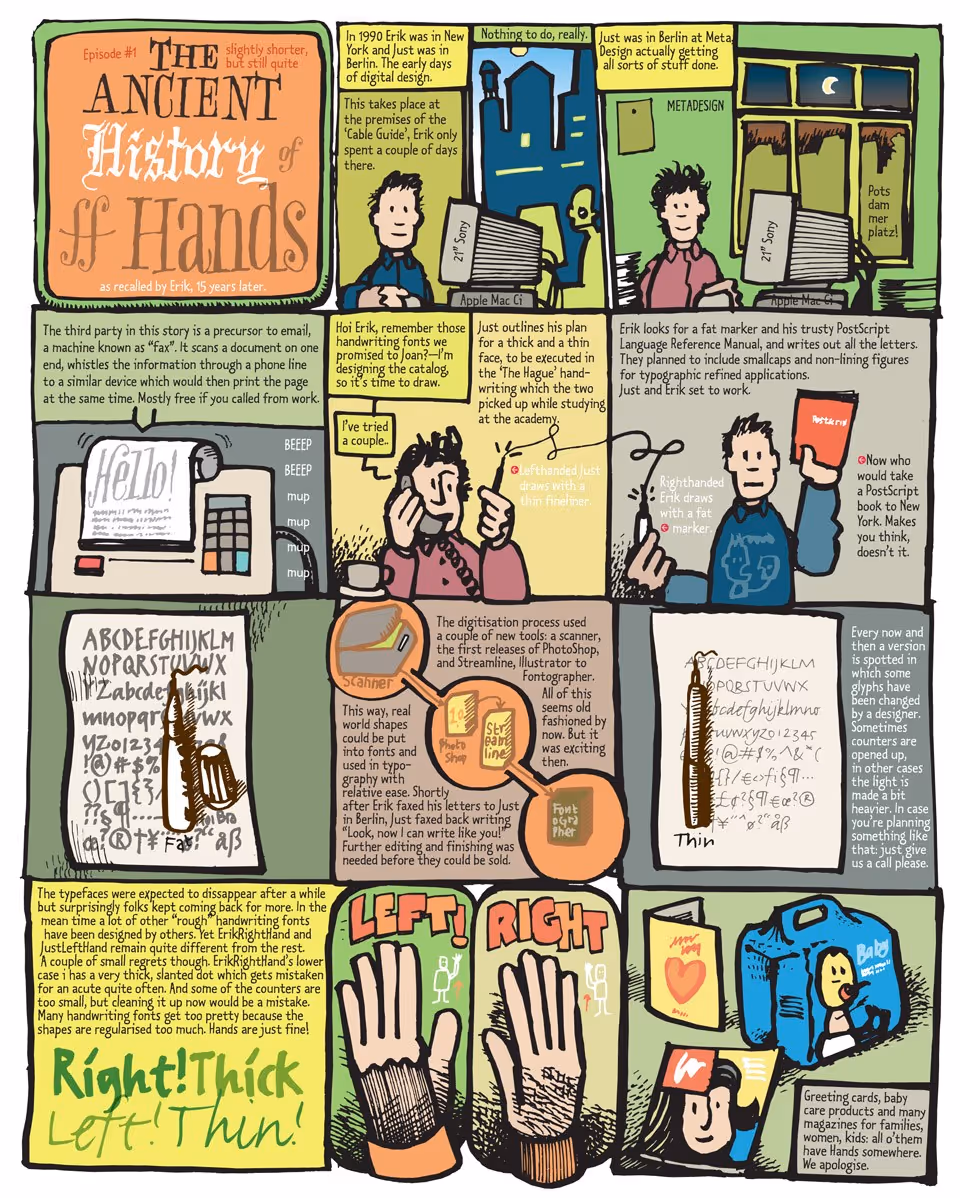
The Ancient History of Hands
Two fonts with Just van Rossum: JustLeftHand and ErikRightHand. Quickly drawn and scanned in 1990. Inappropriately used ever since.
The handwriting of Just (left-handed) written with a thin fineliner, and the (non-left-handed) handwriting of Erik written with a fat marker. Both fonts capture the quick and ephemeral nature of handwritten notes. Functional rather than fancy, it is the typography of reminders and shopping lists – but then really nice ones.
At some point I drew this story about the fonts. The lettering in this strip is with LTR Kosmik.